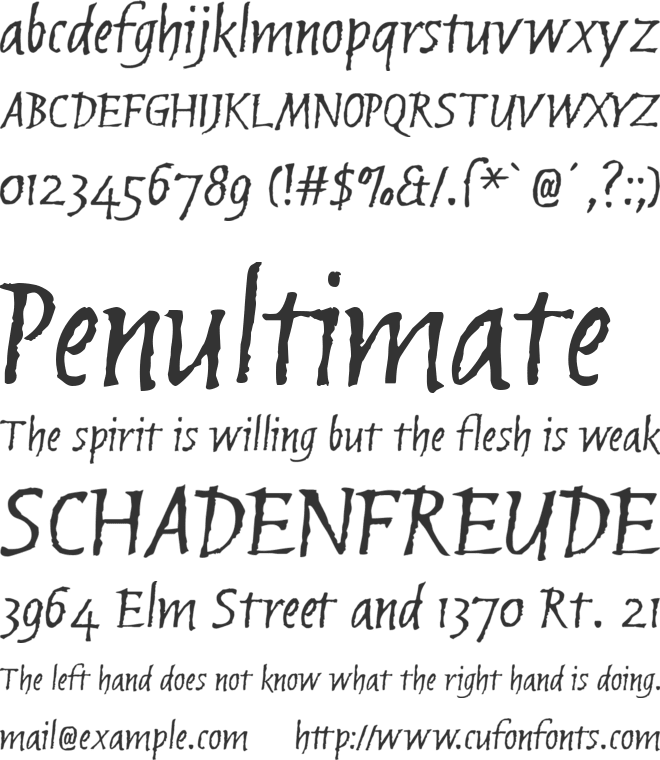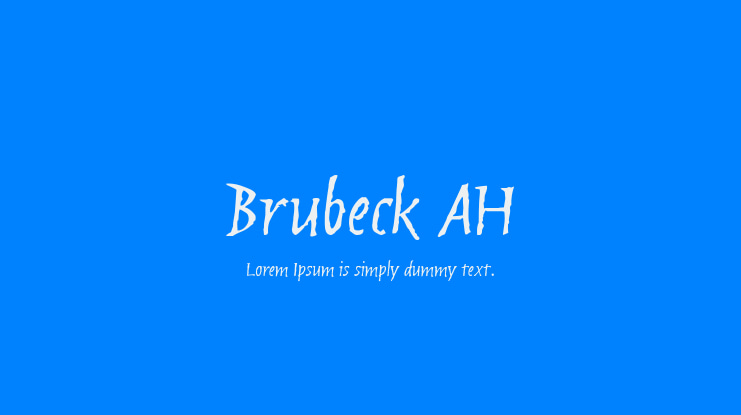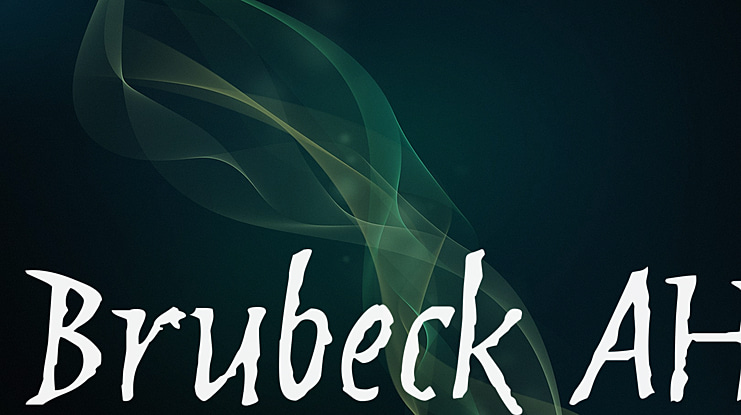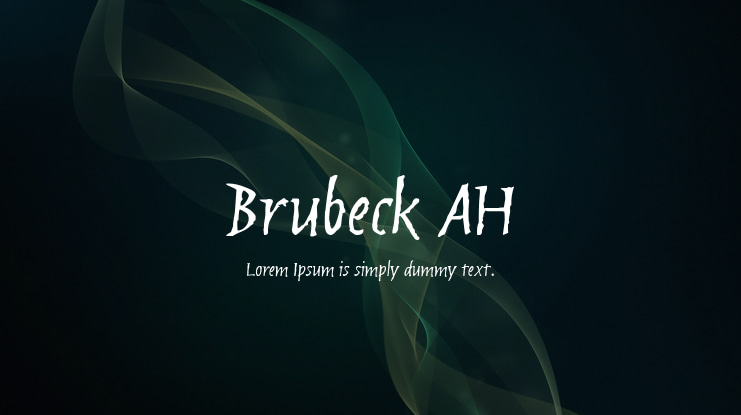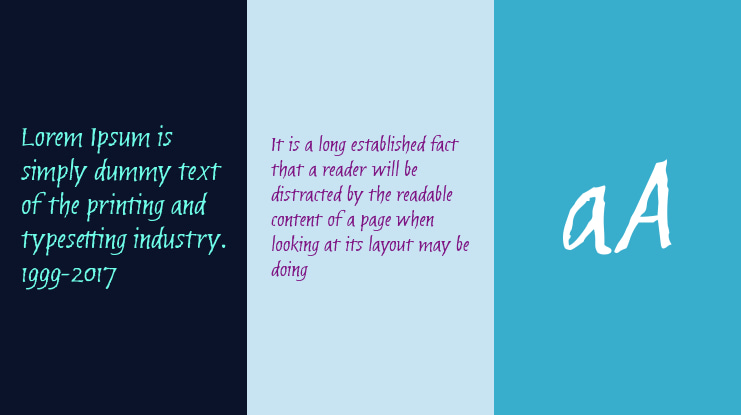
Brubeck is a condensed, brush-like typeface, lively but neat, almost with a calligraphic touch. Forming connected word-pictures it is readable even in long lines. It comes with full Western European character set in the lower case, German Umlauts in uppercase, too.Brubeck contains a number of ligatures, some hidden in improper places of the font, please check with a character map program. There is also a long s on the bar character (see fontgrube blackletter mapping, even though Brubeck is not blackletter).